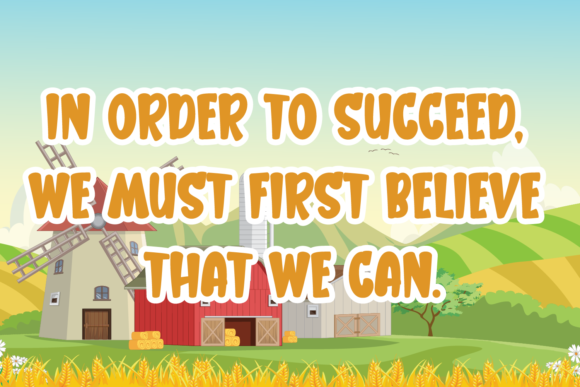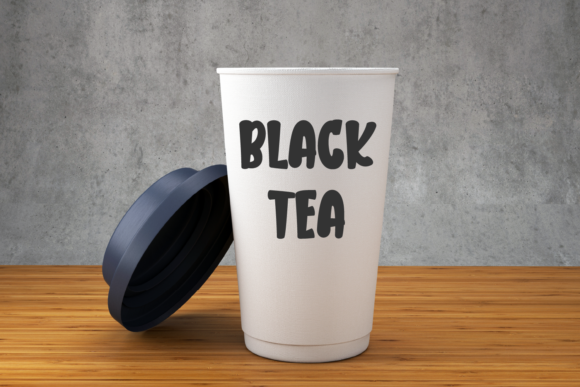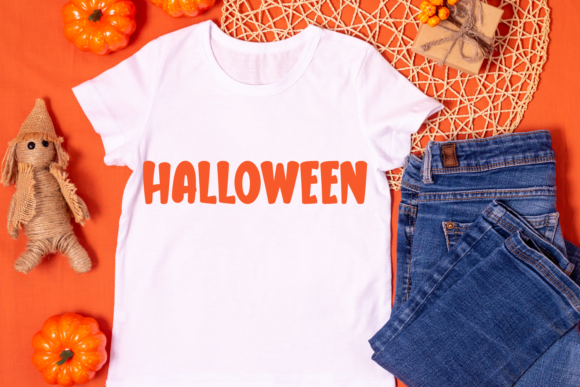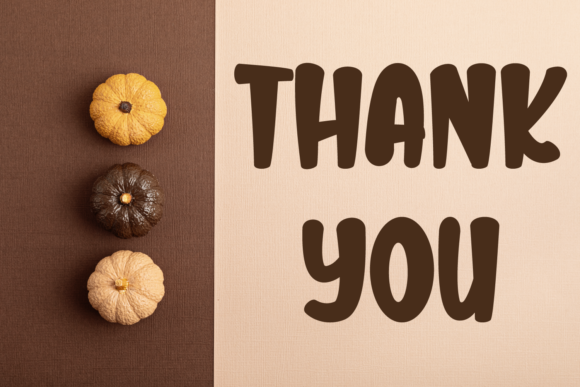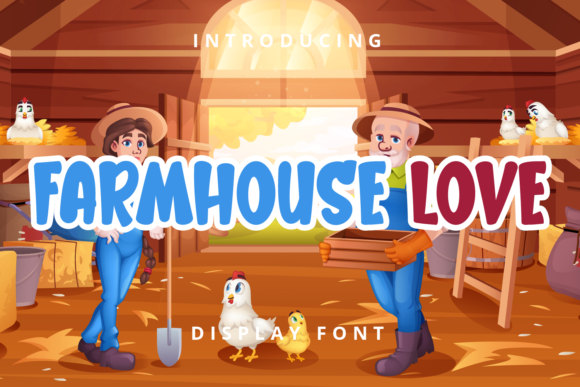
Introducing Farmhouse Love Font: The Perfect Choice for Whimsical Designs
Are you a designer, crafter, or DIY enthusiast looking for a font that embodies playfulness and authenticity? Look no further than Farmhouse Love Font! This cool and unique display font is perfect for adding a touch of whimsy to any children’s activity or school project. In this article, we’ll dive into the features and benefits of Farmhouse Love Font, and explore how it can elevate your designs.
What is Farmhouse Love Font?
Farmhouse Love Font is a carefully crafted display font that exudes a sense of playfulness and charm. Its unique character design makes it perfect for a variety of creative projects, from children’s activity sheets to school projects, and even DIY crafts. The font’s rustic and authentic feel is reminiscent of a farmhouse, evoking a sense of nostalgia and warmth.
Key Features of Farmhouse Love Font
- Unique Character Design: Each character in Farmhouse Love Font is carefully designed to be distinct and recognizable, making it perfect for titles, headings, and other display text.
- Playful and Whimsical: The font’s playful and whimsical feel makes it perfect for children’s activity sheets, school projects, and other creative endeavors.
- Authentic and Rustic: Farmhouse Love Font has a rustic and authentic feel that adds a touch of warmth and nostalgia to any design.
- Easy to Read: Despite its unique character design, Farmhouse Love Font is easy to read, making it perfect for use in a variety of contexts.
Benefits of Using Farmhouse Love Font
So why choose Farmhouse Love Font for your next project? Here are just a few benefits of using this amazing font:
- Adds a Touch of Whimsy: Farmhouse Love Font adds a touch of whimsy and playfulness to any design, making it perfect for children’s activity sheets and school projects.
- Creates a Unique Look: The font’s unique character design ensures that your design stands out from the crowd, creating a unique and eye-catching look.
- Perfect for DIY Crafts: Farmhouse Love Font is perfect for use in DIY crafts, such as scrapbooking, card making, and other paper crafts.
- Use it for Titles and Headings: Farmhouse Love Font is perfect for use in titles and headings, adding a touch of whimsy and playfulness to any design.
- Use it for Children’s Activity Sheets: The font’s playful and whimsical feel makes it perfect for use in children’s activity sheets, such as coloring pages and word searches.
- Try it in DIY Crafts: Farmhouse Love Font is perfect for use in DIY crafts, such as scrapbooking, card making, and other paper crafts.